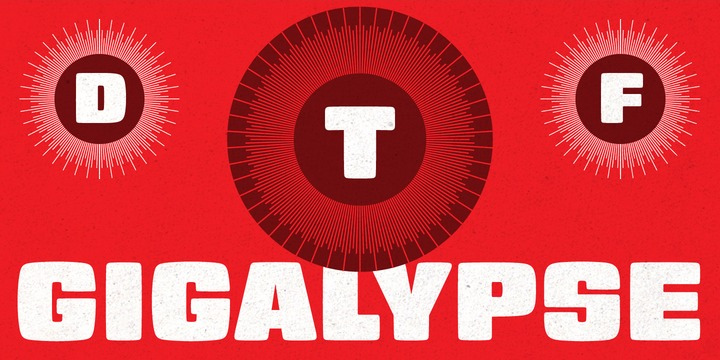
Gigalypse Font
Gigalypse Font is perfect for futuristic branding projects, sci-fi movie titles, cyberpunk game interfaces, tech startup logos, dystopian book covers, electronic music album artwork, digital art installations, and cutting-edge web typography. This powerful typeface works exceptionally well in both digital applications and print media where technological innovation and apocalyptic intensity are key design elements.
What makes Gigalypse Font so exciting is its explosive fusion of post-apocalyptic aesthetics and advanced digital design that creates an incredibly compelling visual narrative. The font features bold, angular letterforms with distressed textures, futuristic elements, and dramatic character variations that evoke both destruction and technological evolution. Its intense personality and cyberpunk-inspired details make it perfect for brands seeking to communicate disruption, innovation, and revolutionary thinking while maintaining strong visual impact and readability.
The Gigalypse Font family includes multiple stylistic variations from regular to ultra-bold weights, along with distressed alternates and special glitch effects. Each style maintains the typeface's apocalyptic character while offering comprehensive character sets including futuristic numerals, tech-inspired punctuation, and special symbols designed to enhance cyberpunk and sci-fi communications.
This extraordinary typeface represents the perfect convergence of dystopian storytelling and contemporary digital typography. Whether you're developing gaming brand identities, creating science fiction marketing materials, or designing tech conference presentations, Gigalypse Font Free Download delivers the explosive energy and versatility needed to capture attention in competitive markets. The font's futuristic aesthetic makes it particularly effective for gaming companies, tech startups, electronic music labels, and entertainment brands exploring themes of digital transformation.
The carefully crafted distressed details and optimized digital rendering in Gigalypse Font ensure powerful visual impact while maintaining clear communication across all platforms. Its commanding presence makes it ideal for headlines, titles, and branding applications where its full apocalyptic intensity can create unforgettable impressions and establish immediate association with innovation and cutting-edge technology.